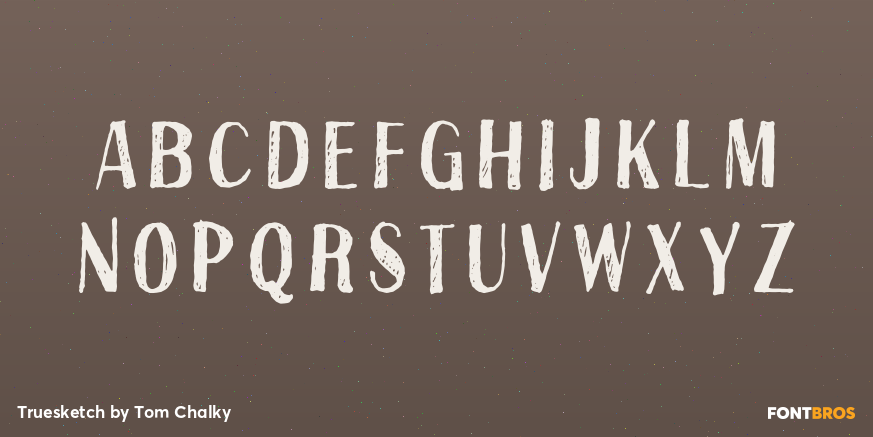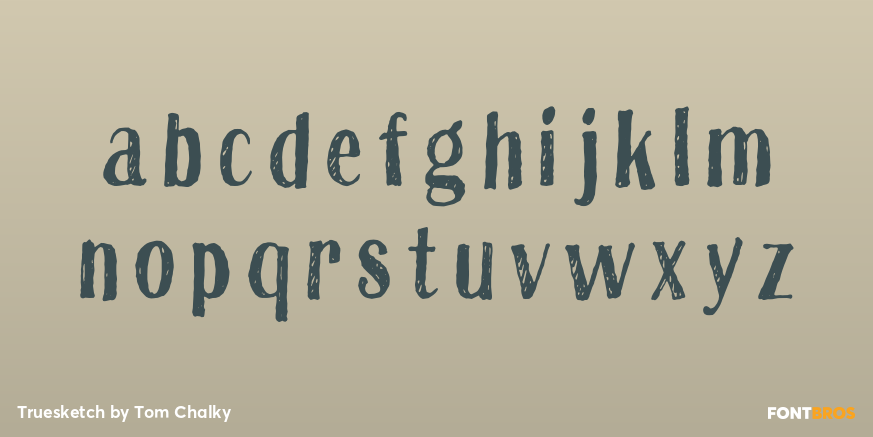
Truesketch
Font Family by Tom Chalky
TrueSketch is a fun, practical and versatile font that can be used in various digital projects. It is a regular font (+ Italic!) with stylistic alternatives for every letter to help you emphasize the authentic handwritten style. Every glyph was hand drawn, scanned, and converted to vector without any digital touch-ups!